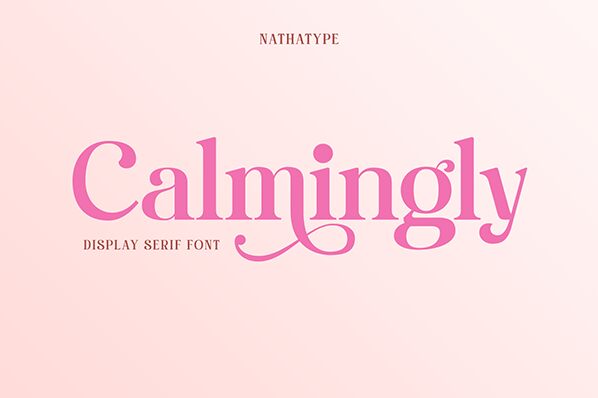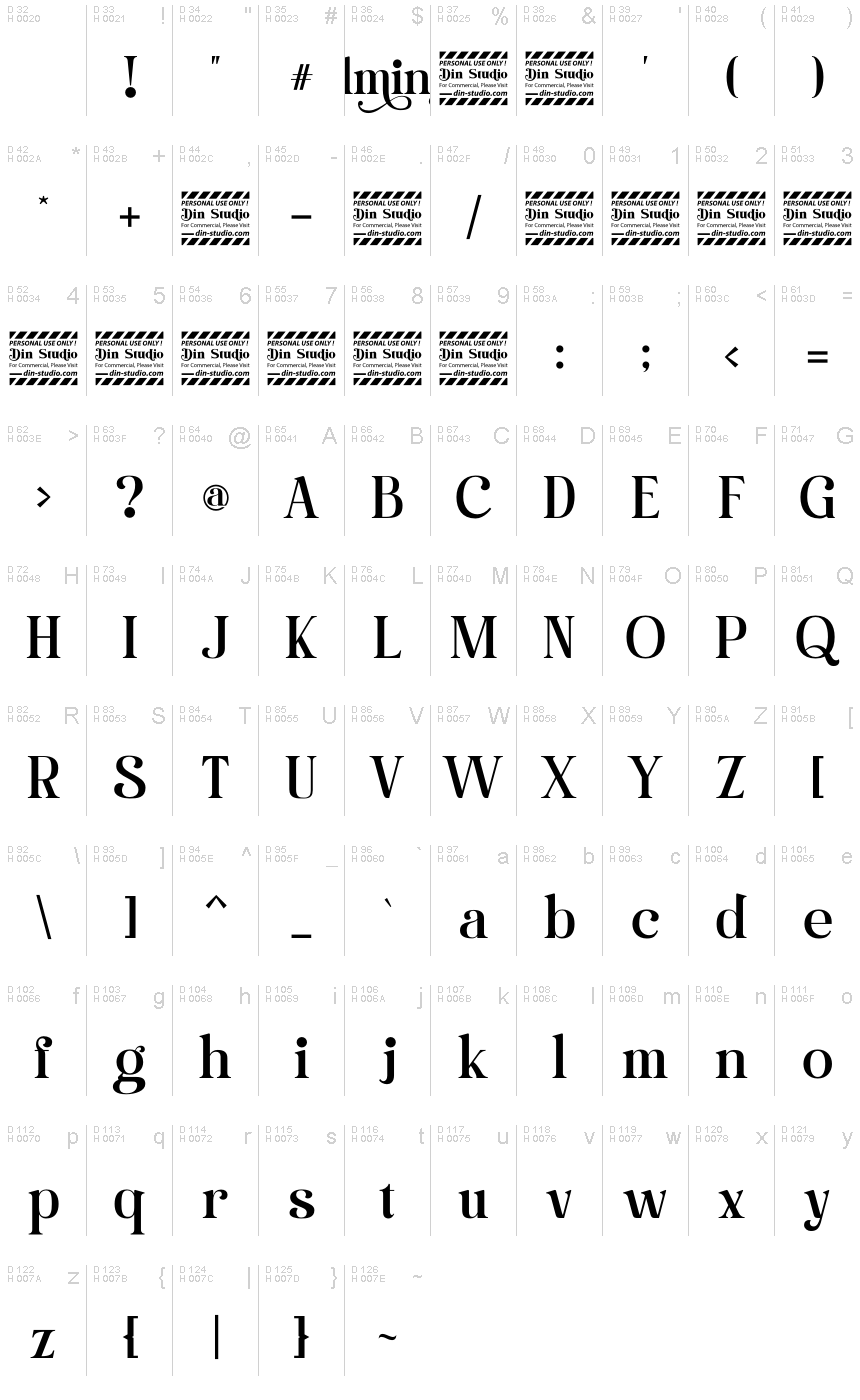
Calmingly, crafted by Nathatype, exudes a serene sophistication through its elegant serif design. Its letterforms convey a sense of traditional charm infused with modern finesse, making it an exquisite choice for those seeking a blend of classic and contemporary. The font's generous proportions suggest a welcoming openness, while the serifs add a touch of formality and structure.
Ideal for editorial work, branding, and invitations where readability marries style, Calmingly offers designers a versatile tool. Its distinct personality shines in print media and digital platforms alike, providing an air of tranquility to every word set in this tasteful typeface.
Calmingly is Playfull Display Font